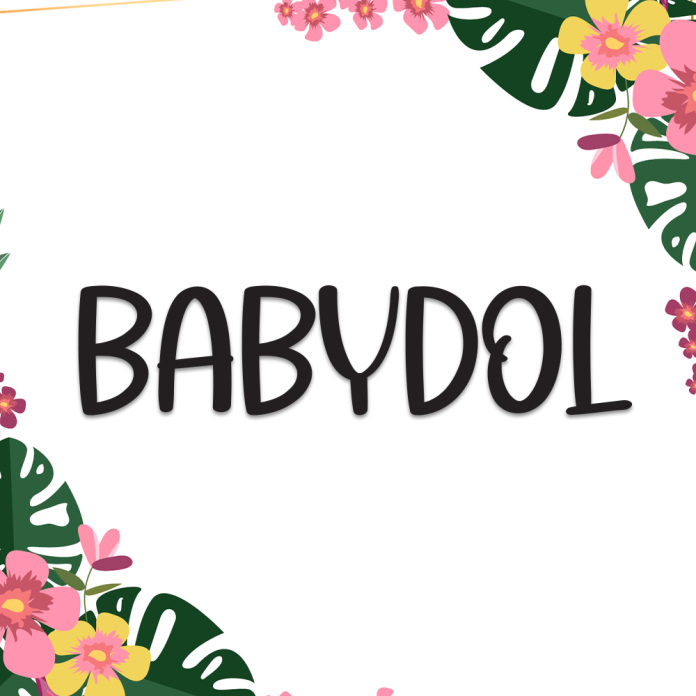
Babydol is a cute and charming display font that brings a playful, youthful vibe to your designs. With rounded shapes and a bubbly personality, this font is perfect for fun, lighthearted projects that need a dose of joy and sweetness.
Ideal for children’s books, toy packaging, greeting cards, birthday invitations, and kawaii-style branding, Babydol makes every word feel fun and friendly.
Cute and bubbly display style
Rounded letterforms with a playful feel
Perfect for kids' content, party invites, cute branding, and more
Brighten your designs with Babydol, the display font that’s full of fun and charm.